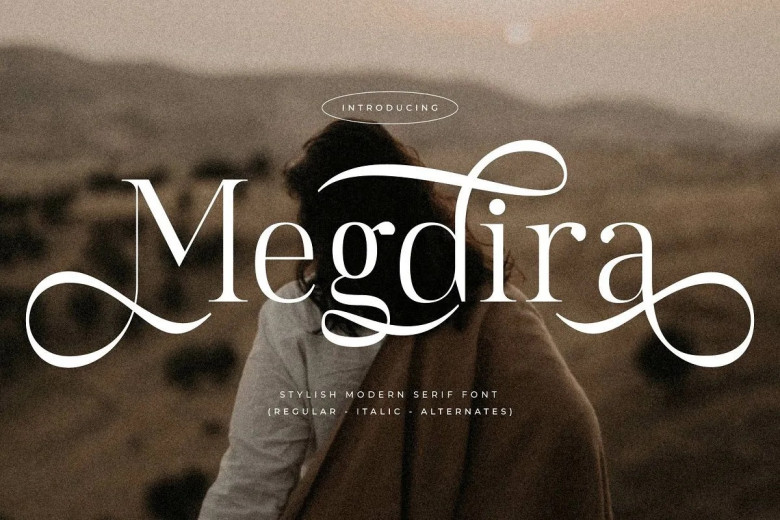
Megdira Font
Megdira is an elegant and contemporary serif typeface with its own distinct style and appearance, perfect for creating classy logos, book or film name designs, fashion magazine publications, clothing lettering and lettering projects, quotes or any other task that requires serif fonts.
Megdira Serif Font